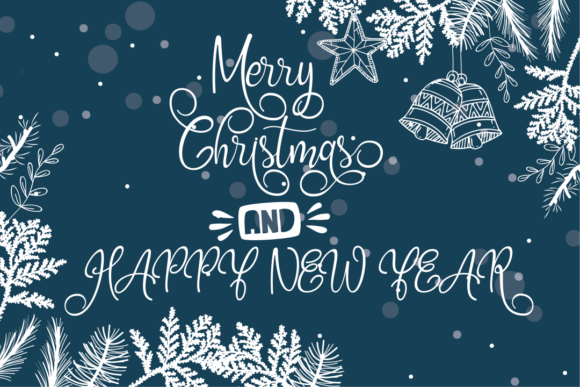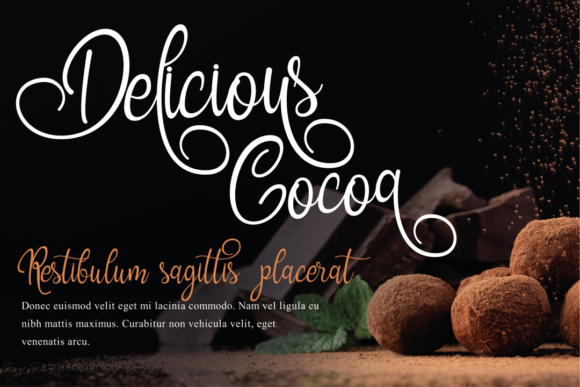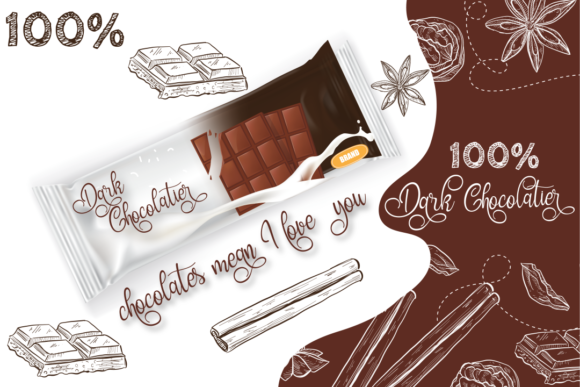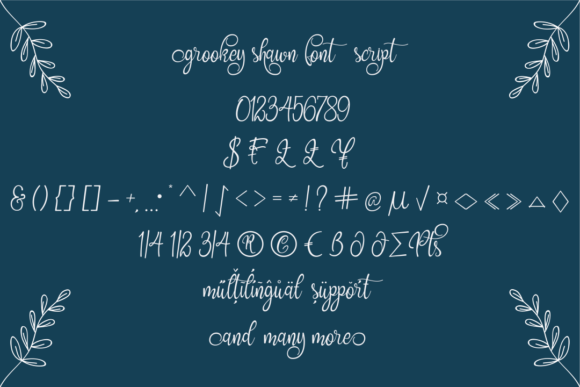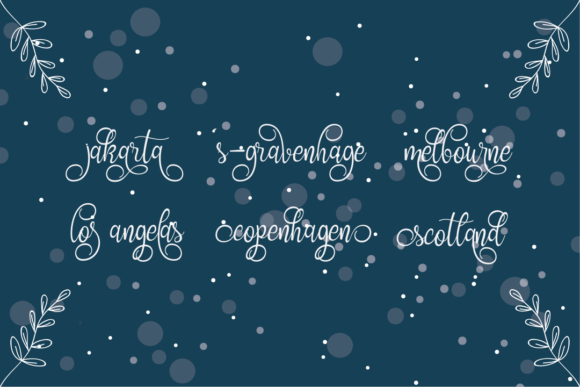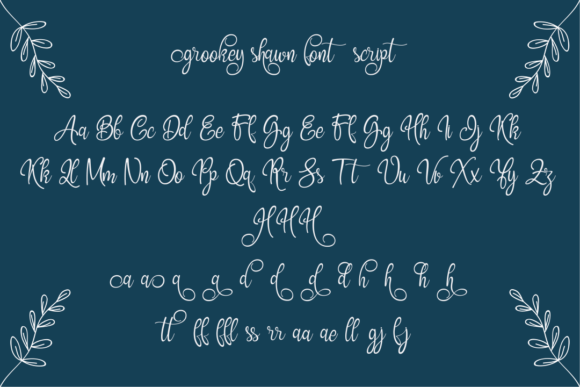
Introducing Grookey Shawn Font: The Ultimate Romantic Calligraphy Typeface
Are you a designer or crafter looking for a font that exudes romance and sweetness? Look no further than Grookey Shawn Font! This beautiful calligraphy typeface is perfect for a variety of projects, from logos and wedding invitations to headings, t-shirts, and more. In this article, we’ll dive into the features and benefits of Grookey Shawn Font, and explore how it can elevate your designs.
What is Grookey Shawn Font?
Grookey Shawn Font is a romantic and sweet calligraphy typeface that features characters that dance along the baseline. Its casual, yet elegant touch makes it perfect for a wide range of applications. The font’s unique design elements, such as its flowing connections and subtle variations in line width, give it a distinctive and charming feel.
Key Features of Grookey Shawn Font
- Romantic and Sweet: Grookey Shawn Font is designed to evoke feelings of love and warmth. Its delicate lines and curves make it perfect for projects that require a touch of romance.
- Casual yet Elegant: This font strikes the perfect balance between casual and elegant. It’s perfect for designs that require a sophisticated touch without being too formal.
- Versatile: Grookey Shawn Font can be used for a wide range of projects, including logos, wedding invitations, headings, t-shirts, letterhead, signage, labels, news, posters, badges, and more.
- Calligraphy Style: The font features a beautiful calligraphy style that’s reminiscent of handwritten scripts.
Use Cases for Grookey Shawn Font
Grookey Shawn Font is an incredibly versatile font that can be used for a variety of projects. Here are some use cases to get you started:
- Wedding Invitations: Create beautiful and romantic wedding invitations that set the tone for the big day.
- Logos: Use Grookey Shawn Font to create a unique and memorable logo for your business or brand.
- Headings: Add a touch of elegance to your headings and titles with Grookey Shawn Font.
- T-Shirts: Create custom t-shirts with a romantic and sweet message using Grookey Shawn Font.
- Signage: Use Grookey Shawn Font to create eye-catching signage for your business or event.
Benefits of Using Grookey Shawn Font
So why choose Grookey Shawn Font for your next project? Here are some benefits to consider:
- Unique and Memorable: Grookey Shawn Font is a unique and memorable font that will help your designs stand out.
- Easy to Read: The font is easy to read, making it perfect for body text and headings.
- Highly Versatile: Grookey Shawn Font can be used for a wide range of projects, from digital designs to print materials.
- Time-Saving: With Grookey Shawn Font, you can create beautiful designs in no time. Simply type out your text and adjust the font to fit your needs.
Tips for Using Grookey Shawn Font
Here are some tips for using Grookey Shawn Font in your designs:
- Pair with Other Fonts: Experiment with pairing Grookey Shawn Font with other fonts to create a unique and interesting design.
- Adjust the Size: Adjust the size of Grookey Shawn Font to fit your design needs. Use it as a headline font or as a body text font.
- Play with Colors: Experiment with different colors to find the perfect match for your design.
- Use it for Branding: Use Grookey Shawn Font as part of your branding strategy to create a consistent and recognizable look.
Grookey Shawn Font is a beautiful and versatile calligraphy typeface that’s perfect for designers and crafters. Its romantic and sweet design makes it ideal for a wide range of projects, from wedding invitations to logos and more. With its ease of use and highly versatile design, Grookey Shawn Font is a must-have font for any designer or crafter looking to add a touch of elegance to their designs.